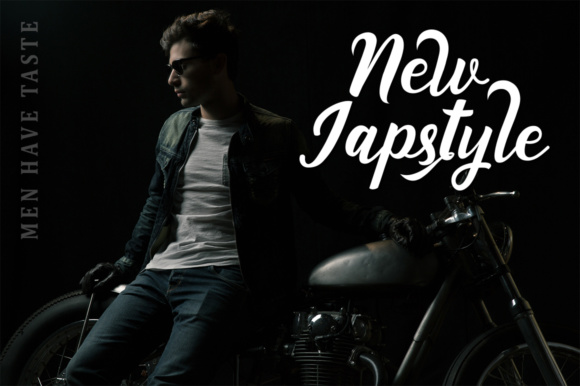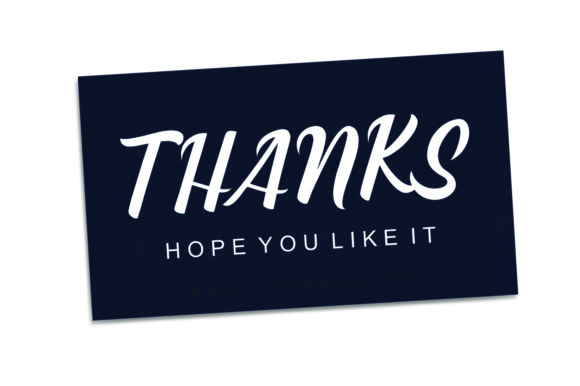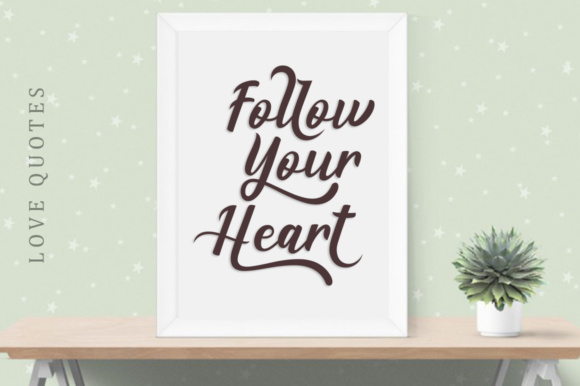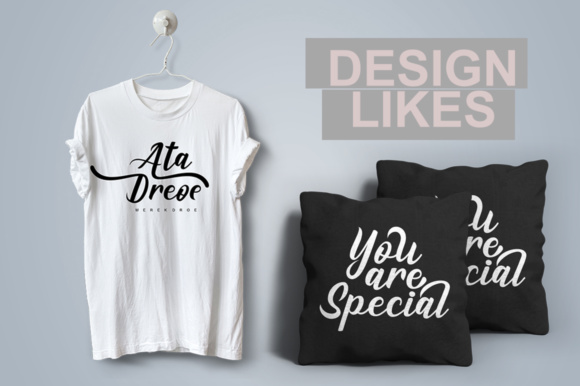
About Eaglese Font
Eaglese Script is a modern calligraphy font. Eaglese can be used for various purposes such as website headers, logos, posters, and much more! Add this lovely freebie to your creations and take your designs to the next level!